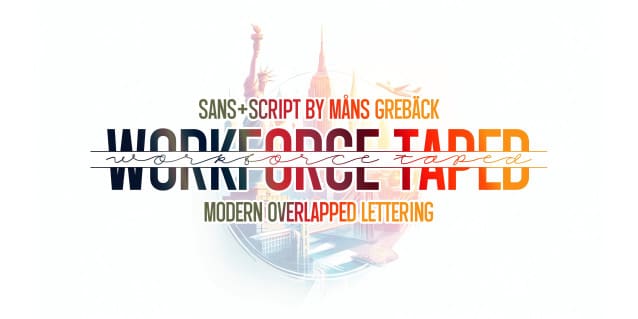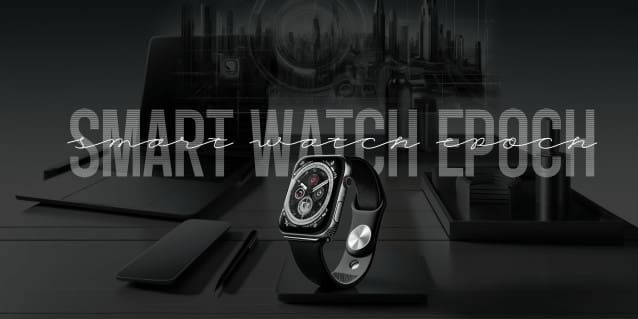
Workforce Gradient Font
Workforce Gradient Font is a soft blend of modern script and sans-serif lettering. A typeface made for logos and projects intended to leave a strong impression.